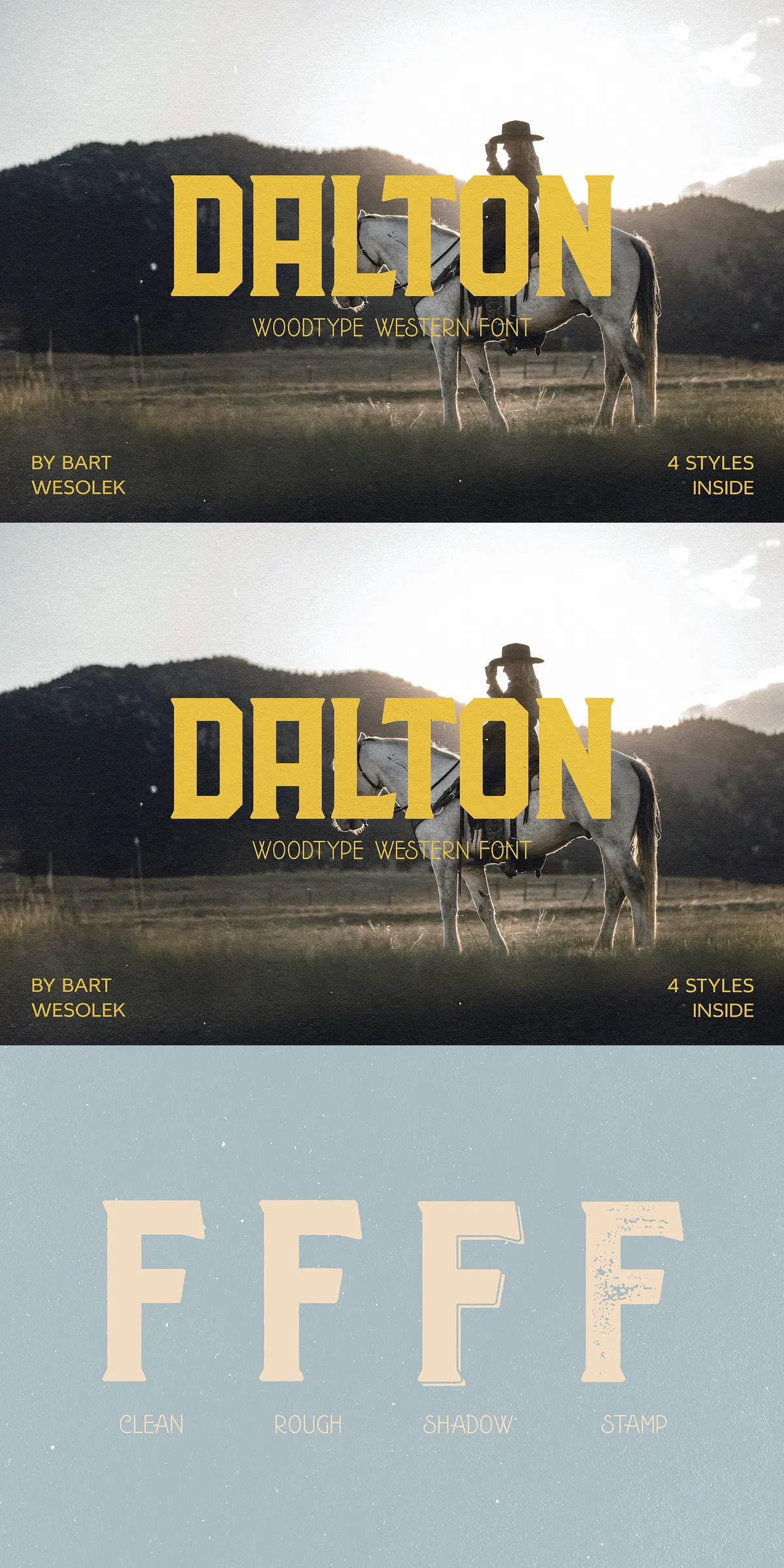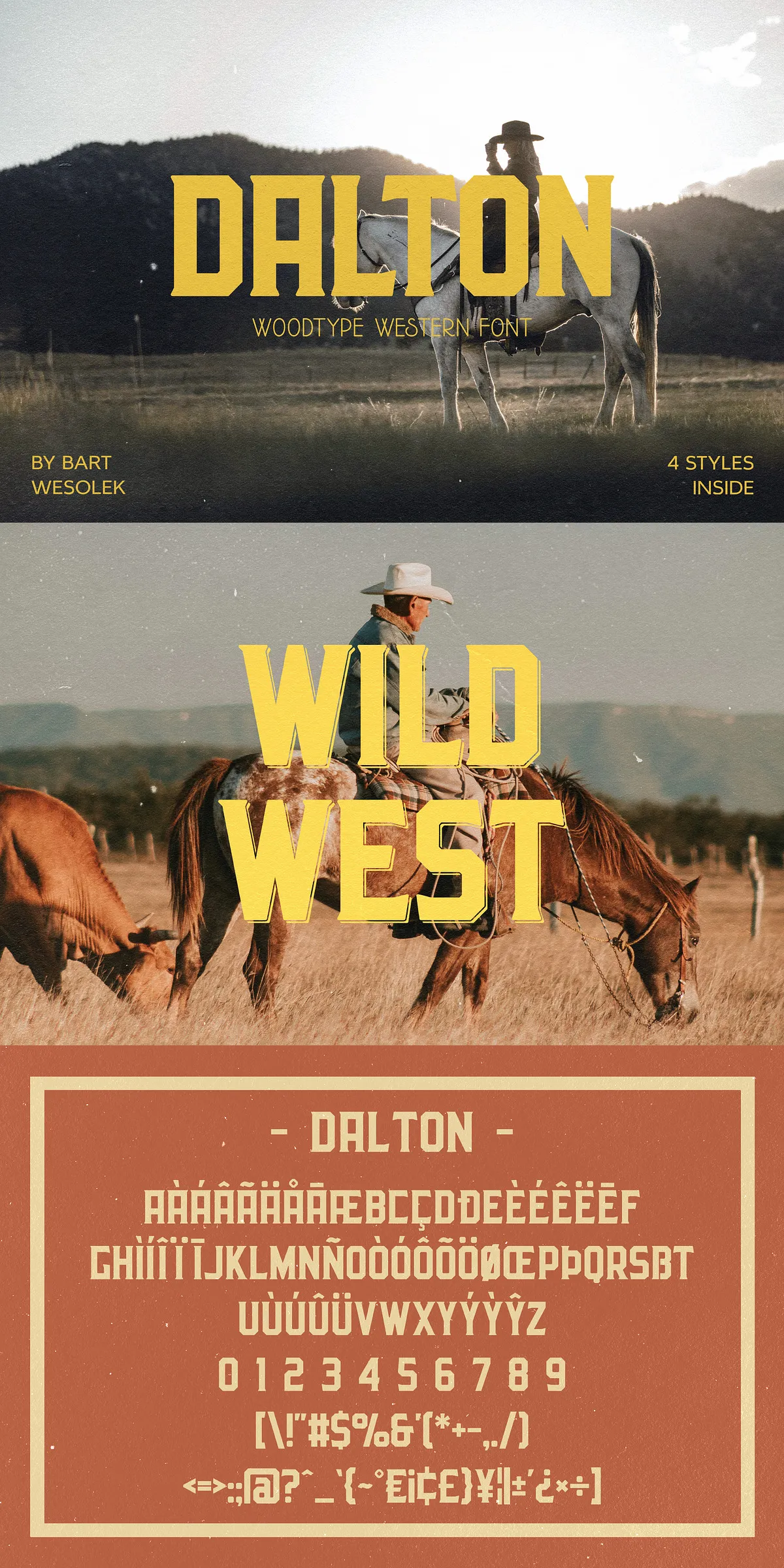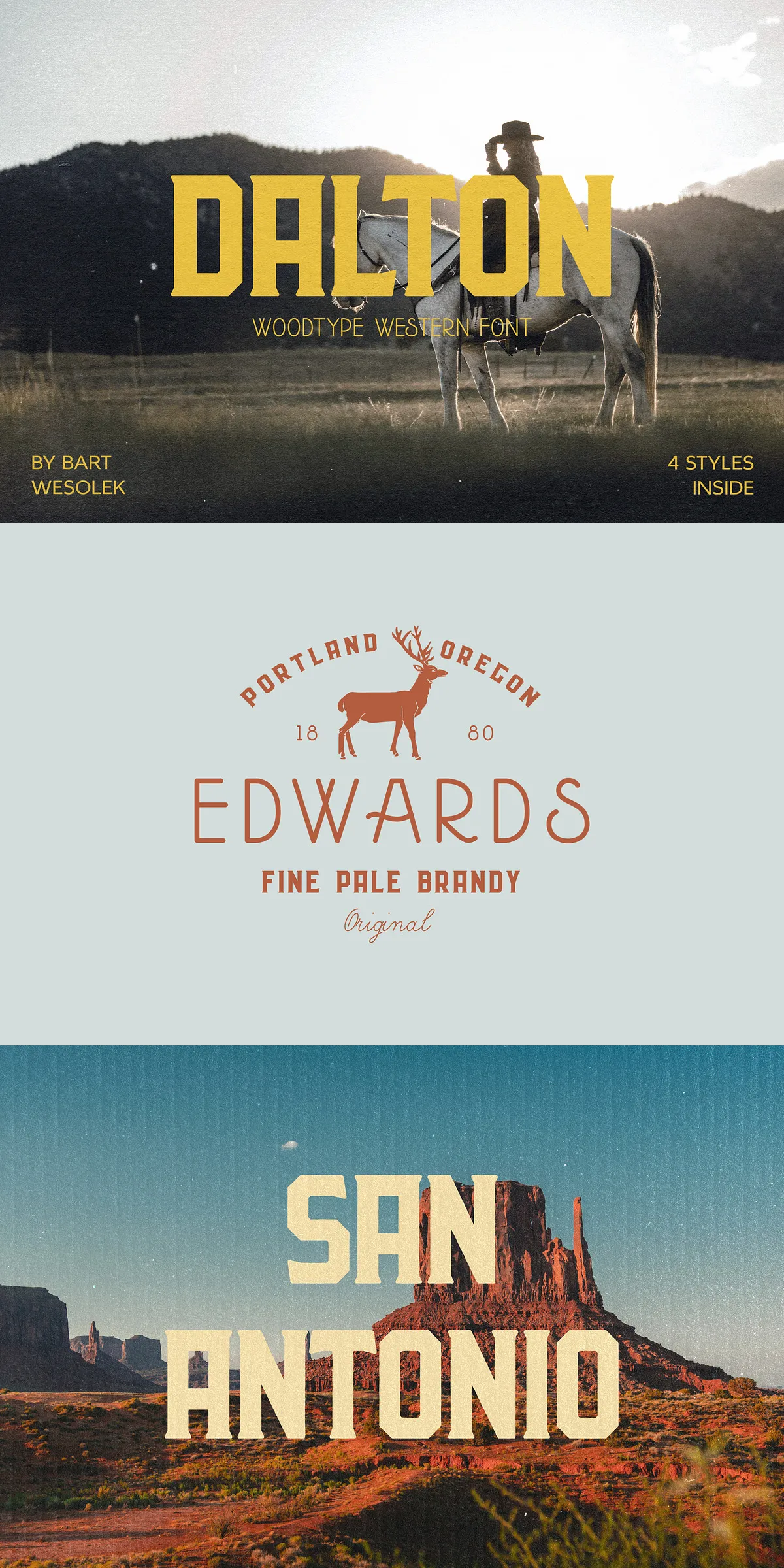
Command attention with Dalton WoodType — a fearless, uppercase font forged from the raw spirit of classic wood-type printing and sharpened for today’s design landscape. This isn’t just a font. It’s a visual declaration. With its chunky, heavy letterforms, bold outlines, and crisp, unapologetic geometry, Dalton cuts through noise and establishes dominance in every project it touches.
Raw Power, Timeless Character
Dalton captures the grit, soul, and authenticity of vintage signage and industrial poster art — but reimagined for digital precision. Every stroke feels deliberate, every terminal bold and decisive. Whether you’re designing for a record label, a streetwear brand, a festival promo, or a luxury product launch, Dalton brings instant credibility and vintage attitude with zero compromise.
Unlike fragile scripts or delicate serifs, Dalton thrives under pressure. Its thick, solid forms retain clarity even at small sizes, while its clean lines prevent visual clutter. This balance of vintage charm and modern functionality makes it a designer’s go-to for projects that demand both strength and style.
Four Distinct Styles for Maximum Creative Freedom
Go beyond basic typography with four unique styles, each engineered to serve a different visual mood and application:
- Clean — Pure, sharp, and minimal. Perfect for high-contrast logos, product packaging, and modern signage where clarity and impact are key.
- Rough — Embraces imperfections. Slightly irregular edges and uneven stroke weight evoke hand-cut wood type, ideal for rustic brands, indie music, and art-focused visuals.
- Shadow — Adds a deep, dramatic drop shadow that gives your text a bold 3D presence. Use in posters, movie titles, or event banners to create instant depth and drama.
- Stamp — Reinforces the tactile, physical nature of wood type. Mimics the impression of a rubber or metal stamp, perfect for vintage branding, stationery, and packaging accents.
Built for Real-World Design Success
Dalton isn’t just visually striking — it’s functionally robust. Designed with the professional designer in mind, it supports a broad array of use cases and technical requirements:
- Extended Latin Character Set — Full support for Western, Central, and Eastern European languages, including accented characters (ÀÁÂÃÄÅĀ, ÈÉÊËĒ, ÌÍÎÏĪ, Ð, Ñ, ÒÓÔÕÖŒØ, ÙÚÛÜ, ÝŶŸ, Þß, and more), ideal for multilingual branding, international campaigns, and inclusive design.
- Integrated Alternates — Access to stylistic alternates for a higher level of customization and uniqueness in your typographic designs.
- Scalable & Legible — Maintains powerful presence and readability at all sizes — from massive posters to micro-text on packaging.
Where Dalton Shines: Top Application Domains
Use Dalton WoodType to dominate your next creative project across industries:
- Signage & Outdoor Graphics — Unmissable clarity and boldness make it ideal for storefront signs, directional panels, and event banners.
- Logos & Brand Identity — Establish a strong, memorable brand voice. Perfect for music labels, sports teams, tech startups, and lifestyle brands.
- Posters & Event Promotions — Turn heads at concerts, art shows, and film festivals with high-impact, attention-grabbing typography.
- Packaging & Merchandise — Elevate beer cans, t-shirts, tote bags, journals, and collectibles with a design that feels authentic and handmade.
- Editorial & Magazine Design — Use in headlines, pull quotes, chapter titles, or feature panels to add a rugged, artisanal feel.
- Web & Digital Media — Embed with WOFF2 for fast loading, crisp display on screens, and striking web headers or callouts.
Pair with Purpose: Design Synergy Made Simple
For maximum effect, pair Dalton with complementary typefaces and backgrounds:
- Slab Serifs & Sans-Serifs — Contrast its boldness with clean, modern companions for balanced hierarchy.
- Textured Backgrounds — Let Rough and Stamp styles shine against paper grain, halftone overlays, or concrete textures.
- Layered Color Effects — Use with drop shadows, gradients, or color blocking to create dynamic visual layers.
Transform Your Vision with Dalton’s Unstoppable Legacy
Choose Dalton WoodType when you want to make a statement that cannot be ignored. It’s for creators who believe typography should be strong, authentic, and unforgettable — not just readable, but felt.